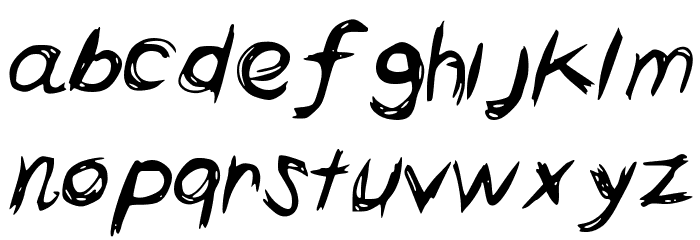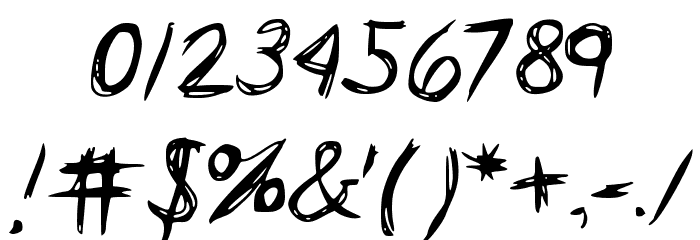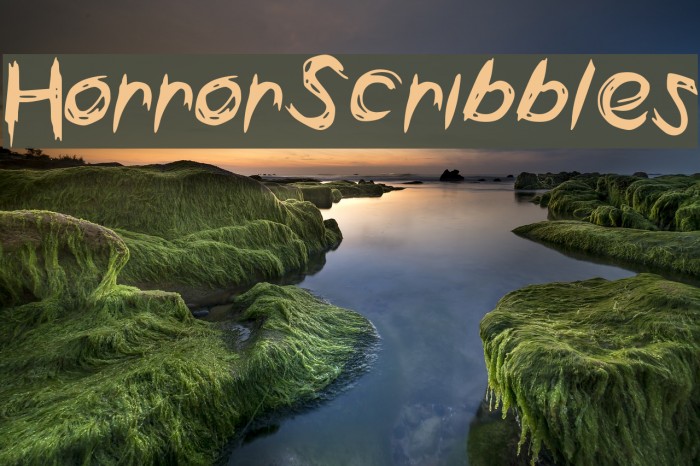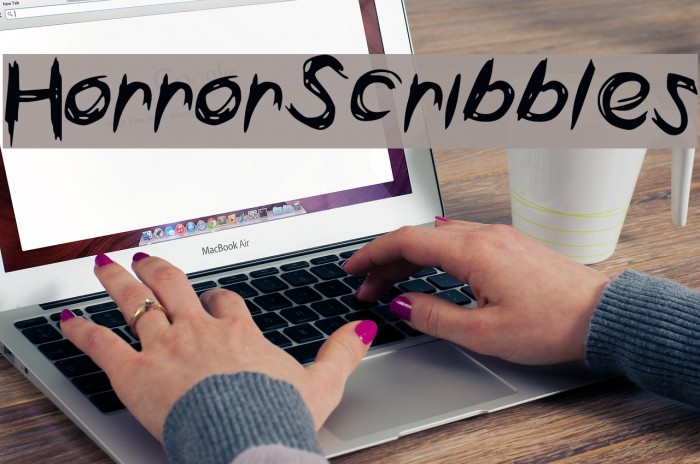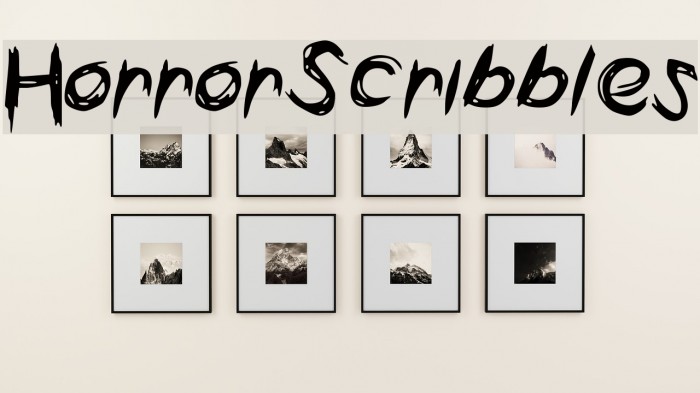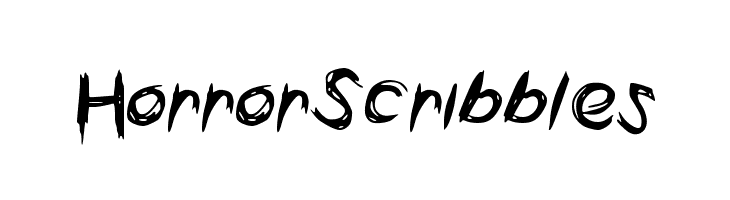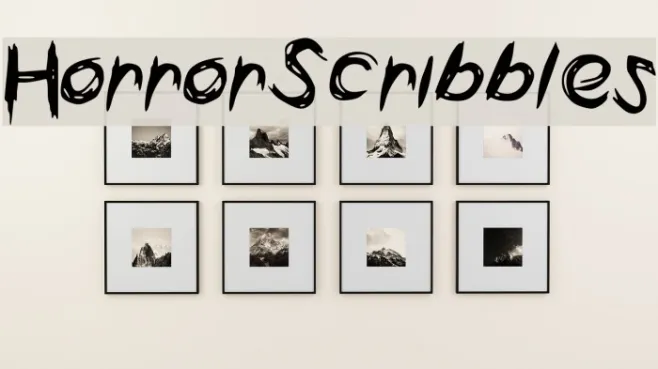
HorrorScribbles Font
This font exudes a chaotic and eerie vibe, reminiscent of scribbles or scratches. The letters are irregular and jagged, with varying stroke thickness that gives them a dynamic and unsettling appearance. The uppercase and lowercase characters maintain a consistent style, with sharp edges and uneven lines. Numbers and special characters follow the same erratic design, enhancing the font's overall unsettling aesthetic. This font is ideal for projects that require a spooky or horror-themed look, as its unique style captures attention and conveys a sense of unease.
A chaotic, scribble-like font perfect for horror themes.
- Proposed Projects: Ideal for Halloween posters, horror movie titles, spooky invitations, and themed graphic designs.
- Use Case: Headlines, Posters, Themed Events